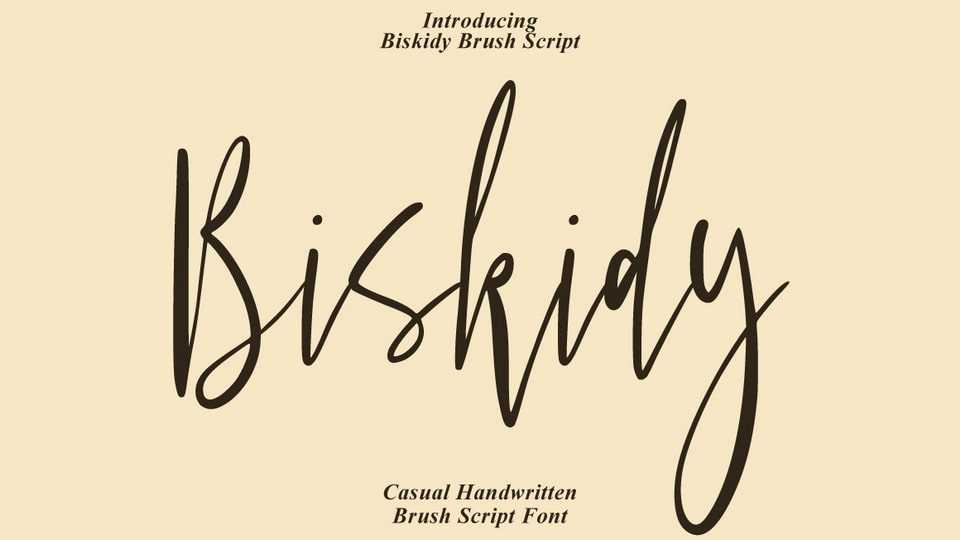
Download Biskidy Script font, a handmade signature style font typeface decorative characters and a dancing baseline, so beautiful on invitation and greeting cards.
Designer: Feri Feriyal